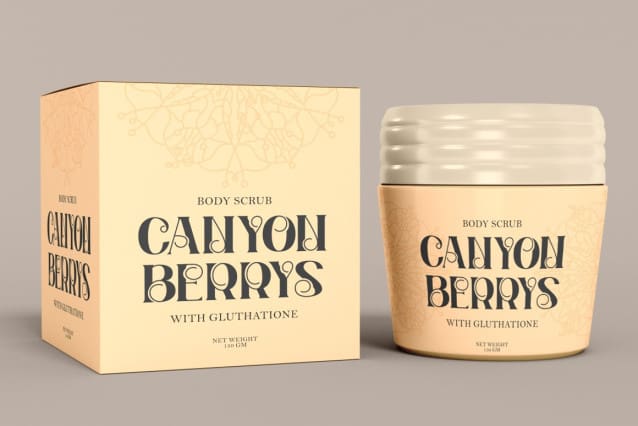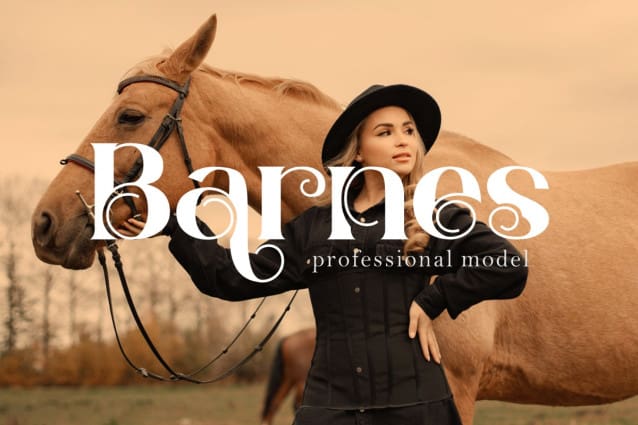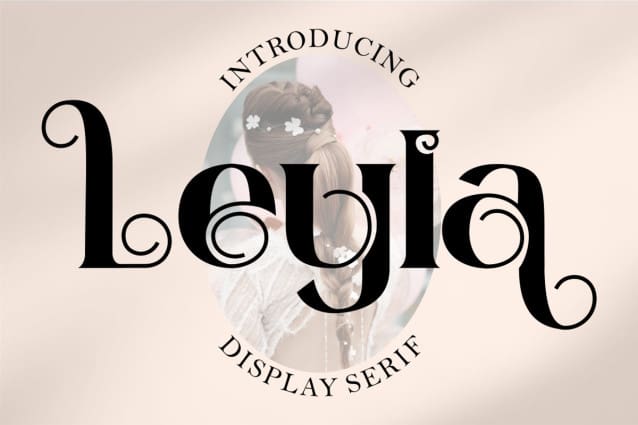
Layla Serif Font
Layla Serif Font, inspired from luxury serif from the display cover and we combine with elegant typeface style. With a alternate character, you can make great display combinations for lettering with a lot of options. Come with open type feature ( a lot of alternates and end swash), its help you to make great lettering.
Layla Serif font is also support multi language. Layla Serif best uses for Logotype, heading,cover, poster, logos, quotes, product packaging, header, merchandise, social media & greeting cards and many more.